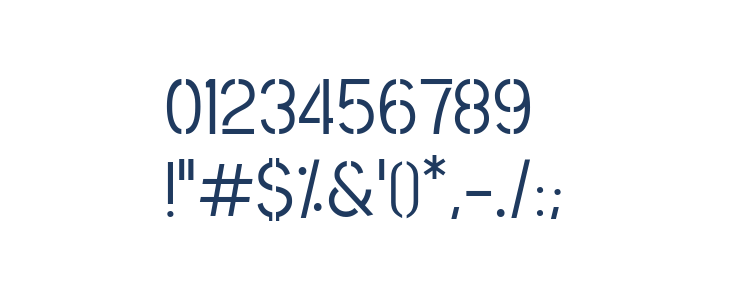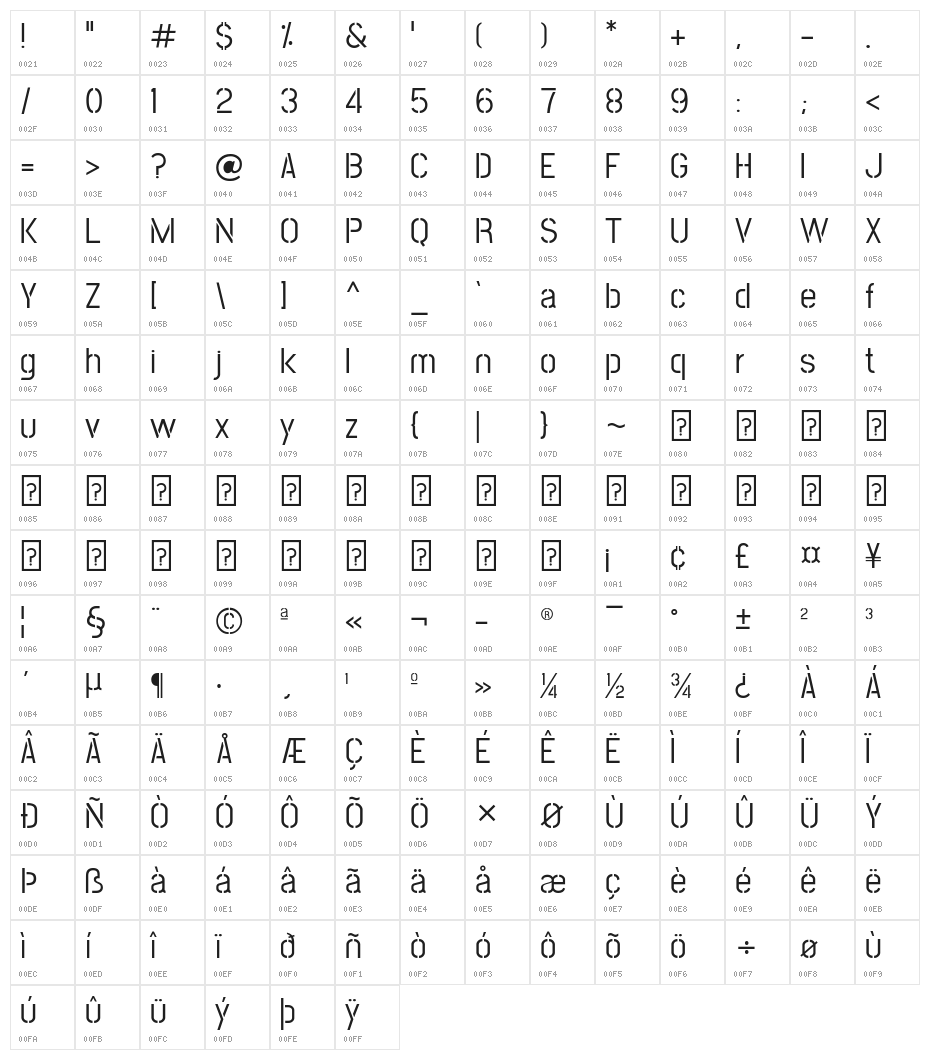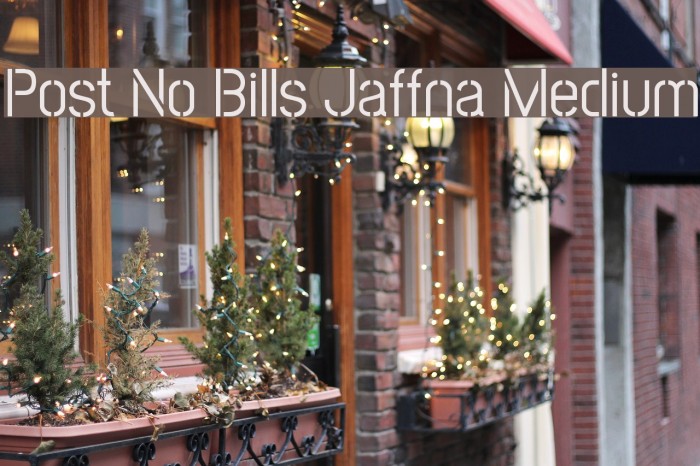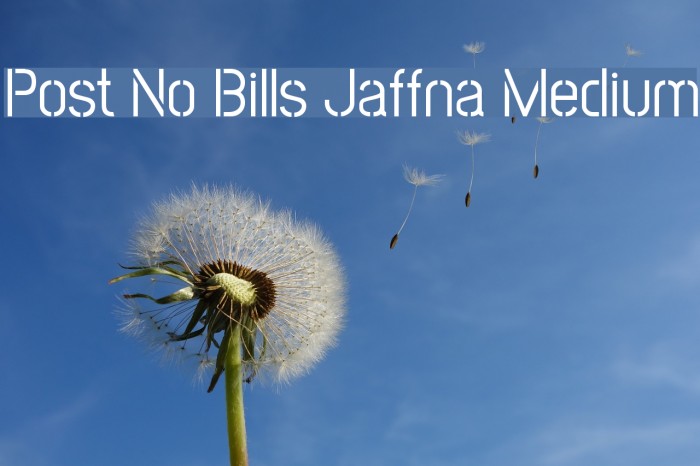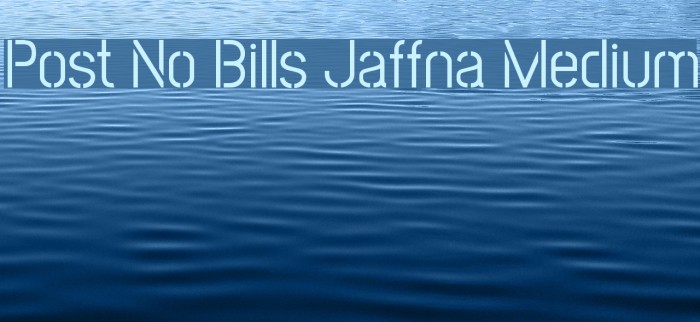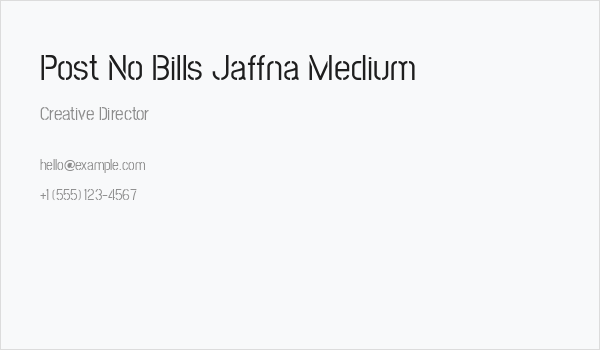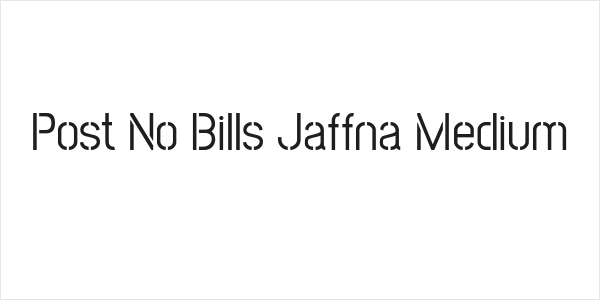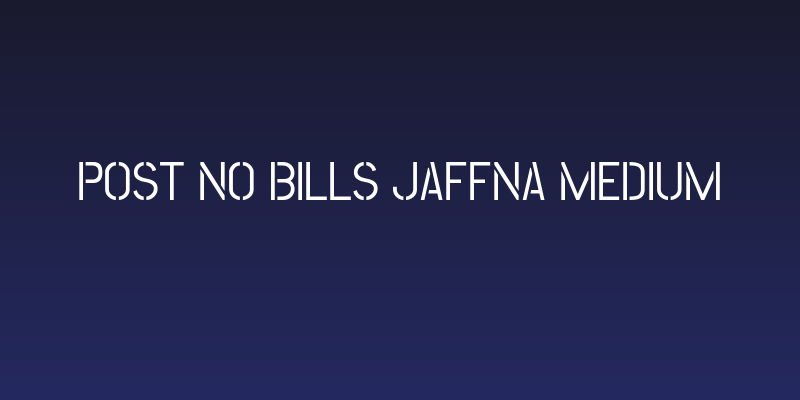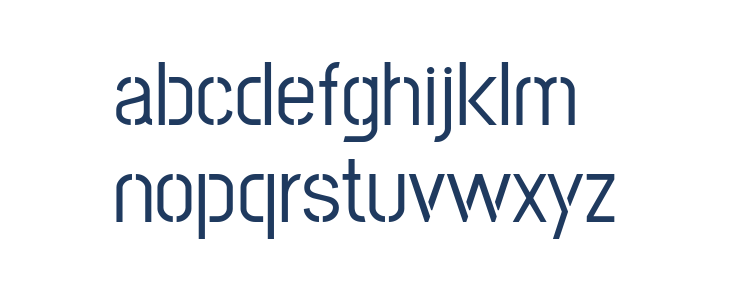
Post No Bills Jaffna Medium Font
Post No Bills Jaffna Medium Description
This font features a modern, geometric design with a distinct stencil-like appearance. The characters are constructed with clean, straight lines and sharp angles, creating a sense of precision and clarity. The uppercase and lowercase letters maintain a consistent height and width, contributing to a uniform and balanced look. The numerals and special characters are designed to match the overall aesthetic, ensuring cohesion across all elements. This font's unique cut-out style adds a contemporary edge, making it suitable for a variety of creative applications.
| Use Case | Headlines, Logos, Signage |
| Proposed Projects | Ideal for branding, signage, posters, and modern editorial design. |